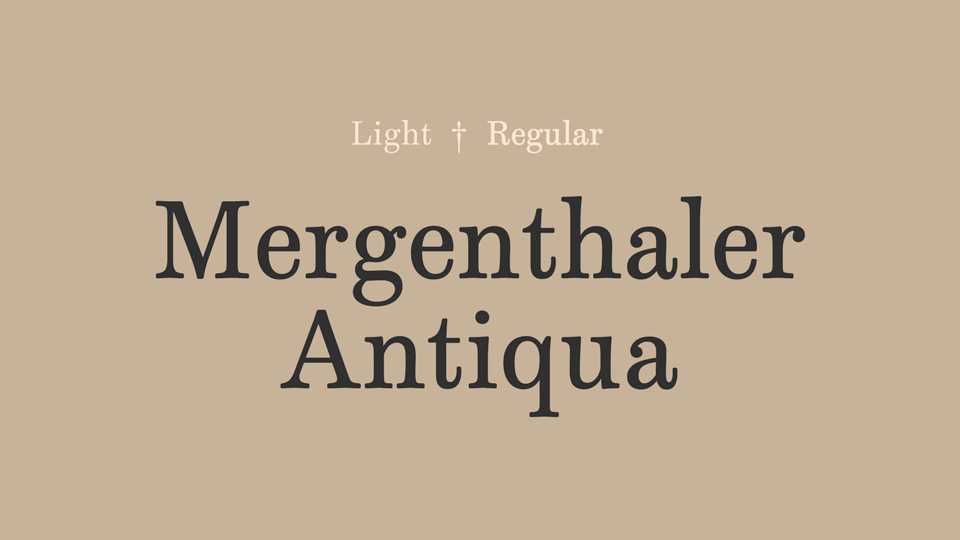
Download Mergenthaler Antiqua typeface, an elegant serif font family in two weights, a digitization of a forgotten typeface by Hermann Zapf. Mergenthaler Antiqua was a variation of the Modern genre, but it still had Zapf’s distinct calligraphic approach.
Designer: Jens Kutilek